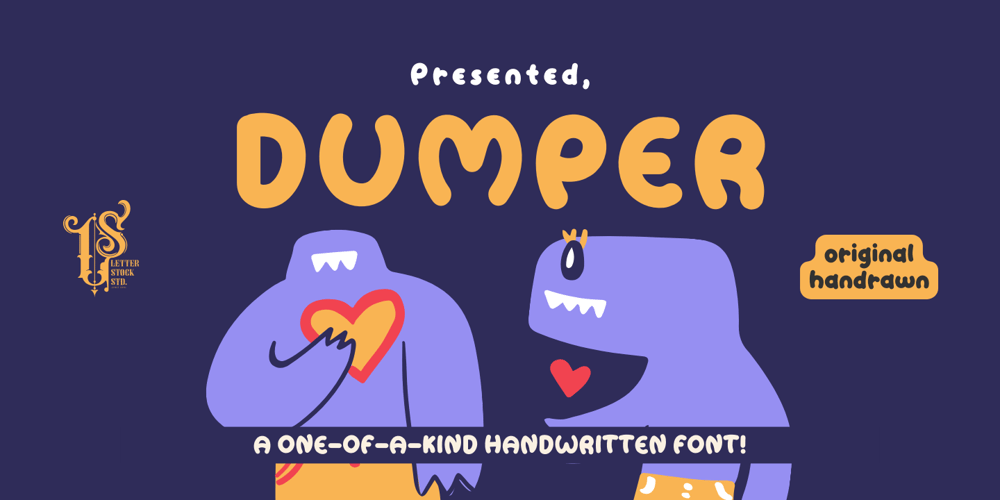
Dumper Font Family was designed by Studio LetterStock and published by LetterStock. Dumper contains 1 styles and family package options. Introducing “Dumper” – Your Original Hand-Drawn 60’s Retro Bold FontStep into the bold and vibrant world of “Dumper,” a font that seamlessly blends original hand-drawn craftsmanship with the iconic style of the 60’s retro era. Ideal for posters, headlines, and vintage-themed branding projects, this font exudes a dynamic energy that adds a bold statement to your designs.Key Features: Original Hand-Drawn Craftsmanship: Each character in “Dumper” is crafted by hand, bringing a unique and authentic touch to your creations. 60’s Retro Bold Vibes: Immerse your designs in the bold and lively spirit of the 60’s, making “Dumper” a perfect choice for projects seeking a retro aesthetic. Why Choose “Dumper”: Craft posters and headlines that command attention with bold and dynamic lettering. Design branding materials that transport your audience back to the vibrant 60’s era. Establish a brand presence with a font that effortlessly captures the essence of retro boldness. Download “Dumper” Now and Let Your Designs Boldly Embrace the 60’s Retro Vibe!